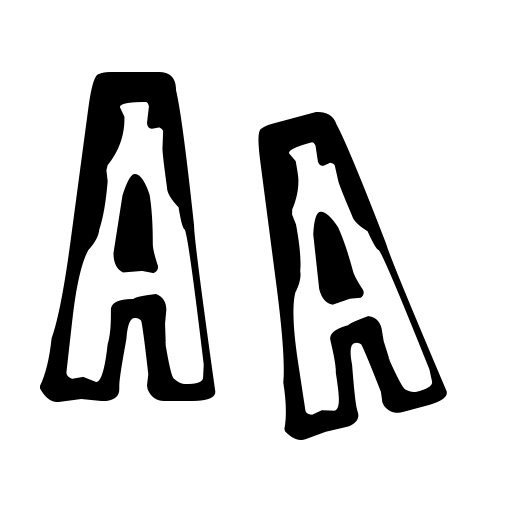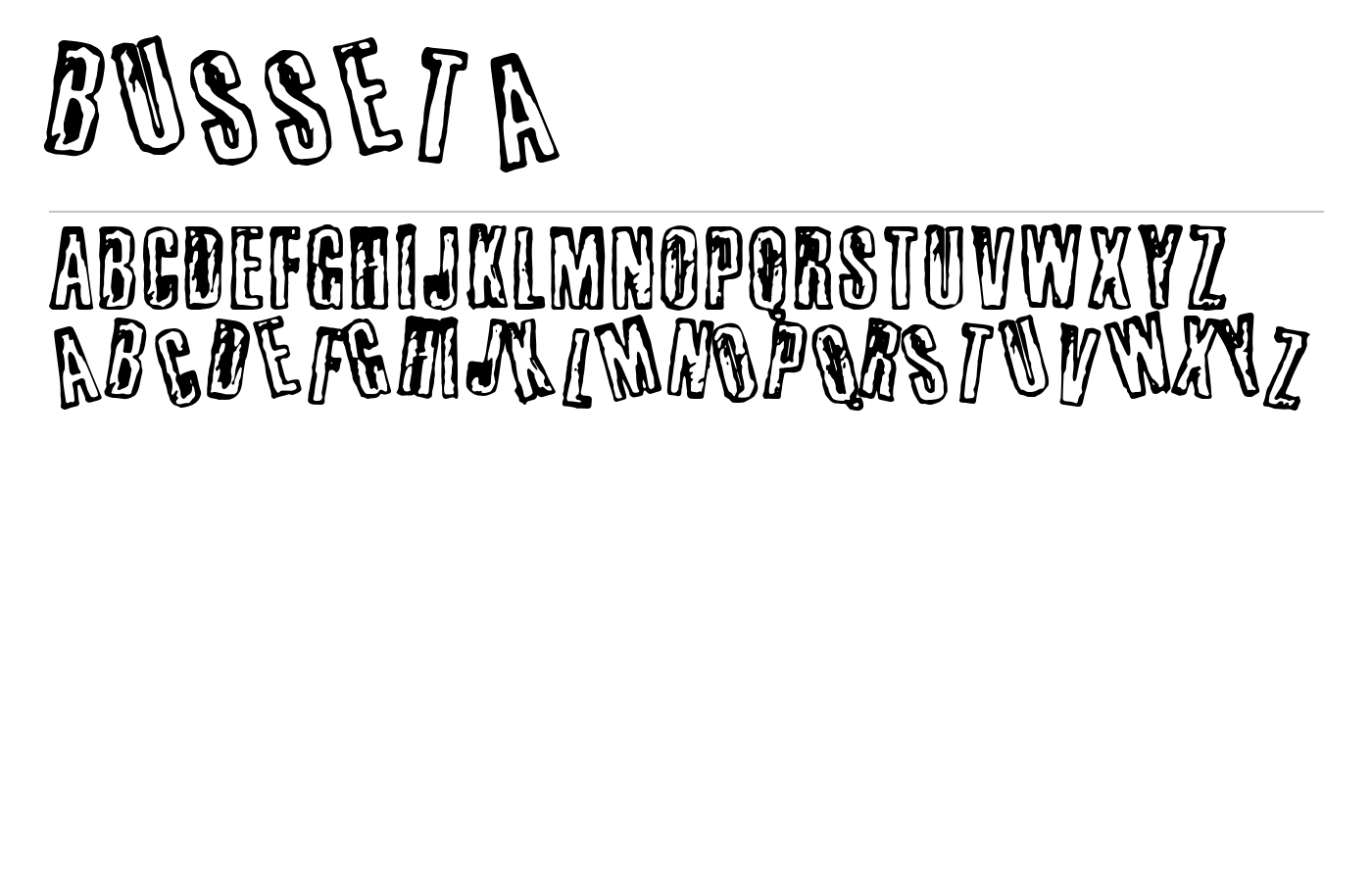
Busseta is a bold, decorative sans serif font with a quirky, hand-drawn feel. Its irregular shapes and textured interior details give it a playful and vintage vibe, making it perfect for creative headlines, posters, and branding projects that want to stand out with a fun, handcrafted personality. This font works well where a unique, energetic look is desired to grab attention and convey a casual, artistic style.
busseta Font
About busseta Font